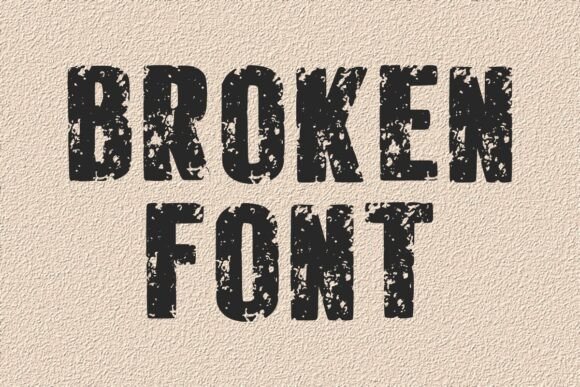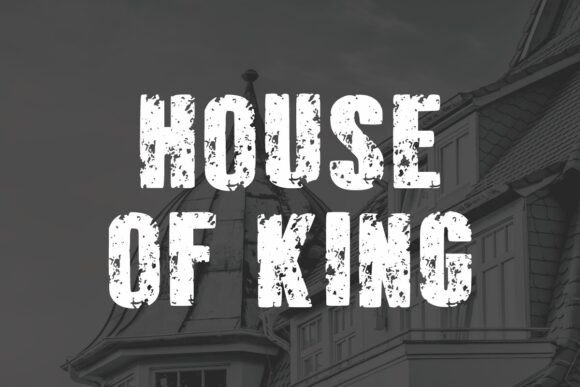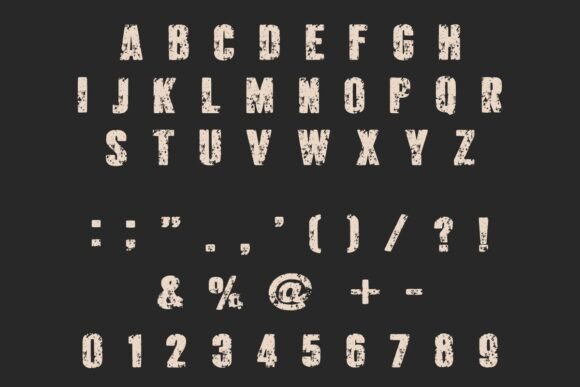
Introduction to Grinz Grunge Font
Grinz Grunge is a grunge and rough bold display font perfect for various projects such as blog posts, logos, branding, ads, invitations, greeting cards, planners, photo albums, decorations, and much more.
Key Features of Grinz Grunge Font
Why Choose Grinz Grunge Font?
Grinz Grunge Font offers exceptional quality and versatility, making it a valuable addition to your design toolkit. Whether you’re creating for personal projects or commercial use, Grinz Grunge Font delivers professional results.